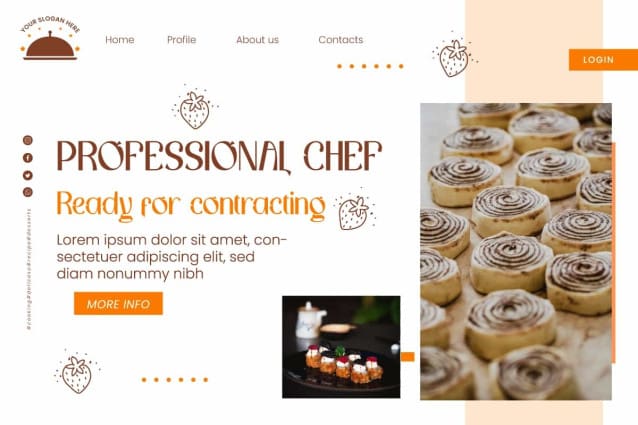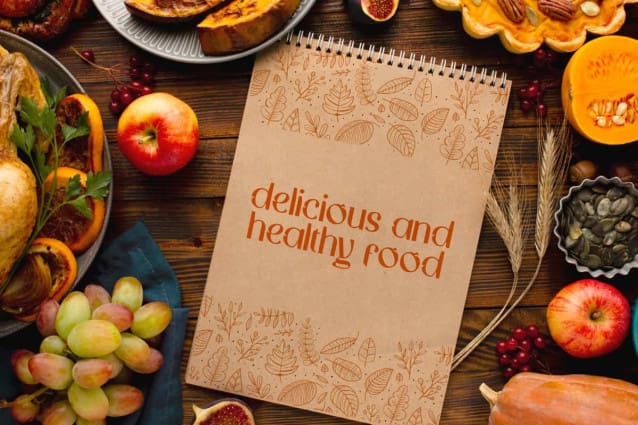
Winonna Bentley Font
Winonna Bentley Font is a unique vintage display font with versatile usages. This font has a unique shape and attractive charm that can captivate you. It will be good for any designs, such as brand image, cover, custom design, flyer, invitation, label, marketing material, poster, menu, product packaging, quote, signage, stationery, website page, and more!